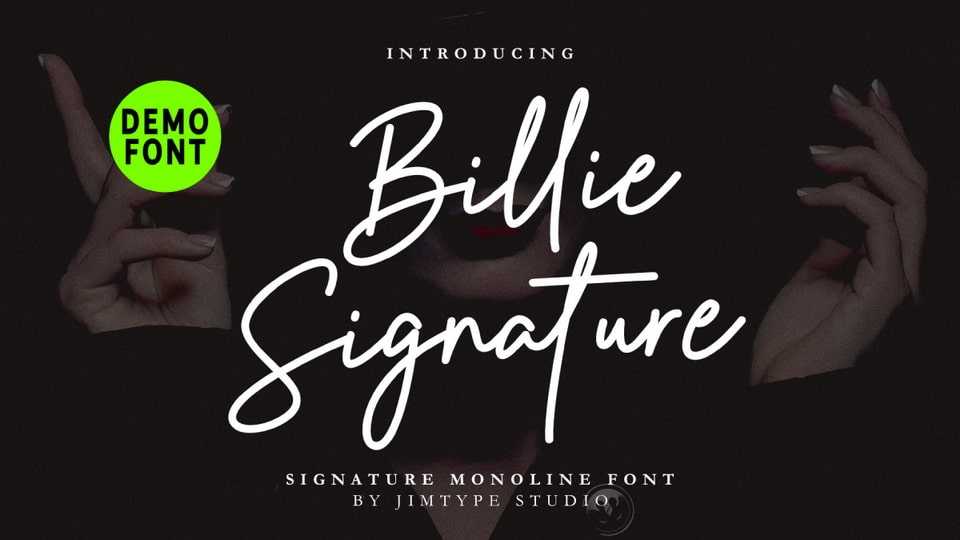
Download Billie Signature font, a stylish and exquisite script typeface that combines sophistication with a touch of whimsy. It’s flowing curves and elegant letterforms make it ideal for wedding invitations, branding, and editorial projects.